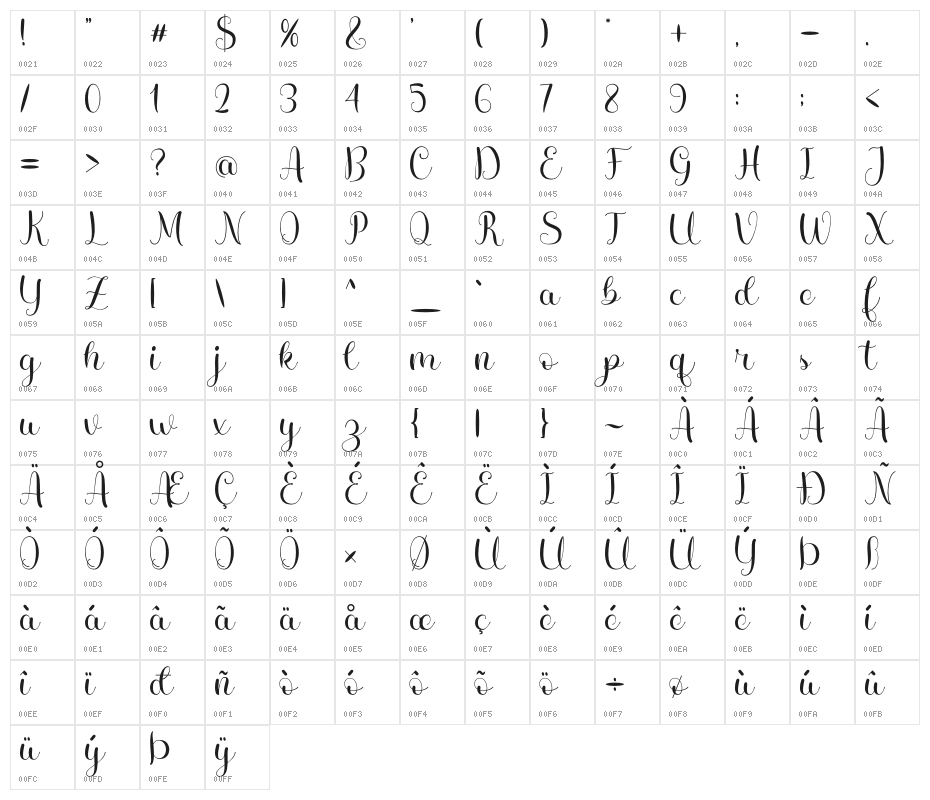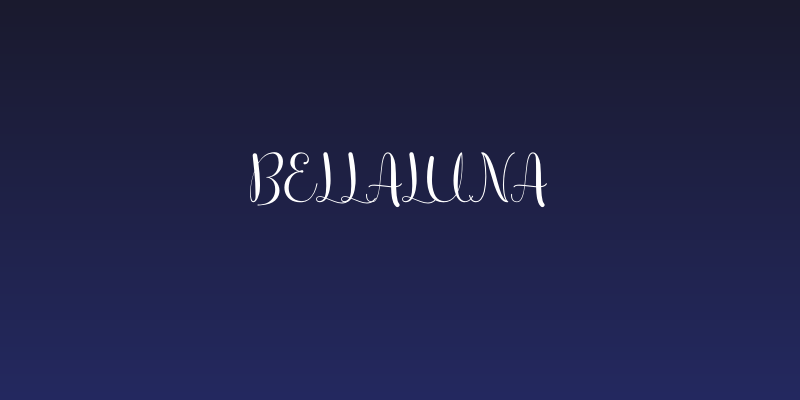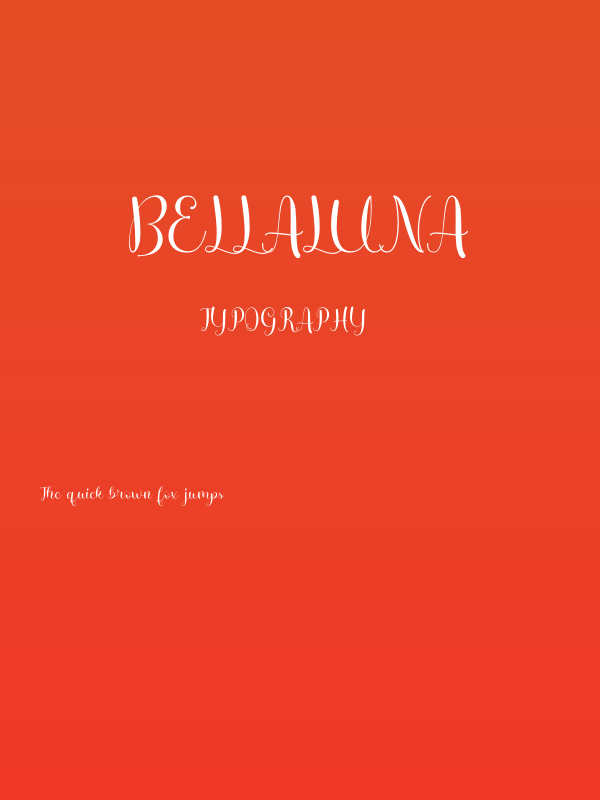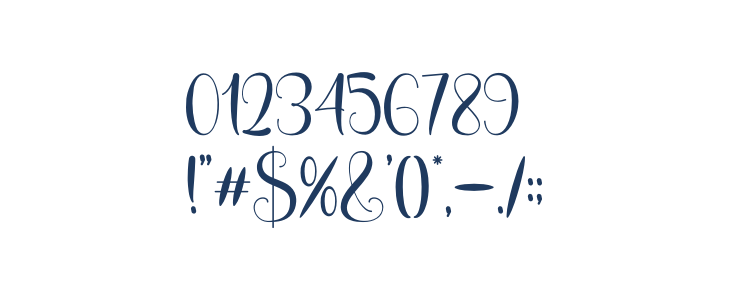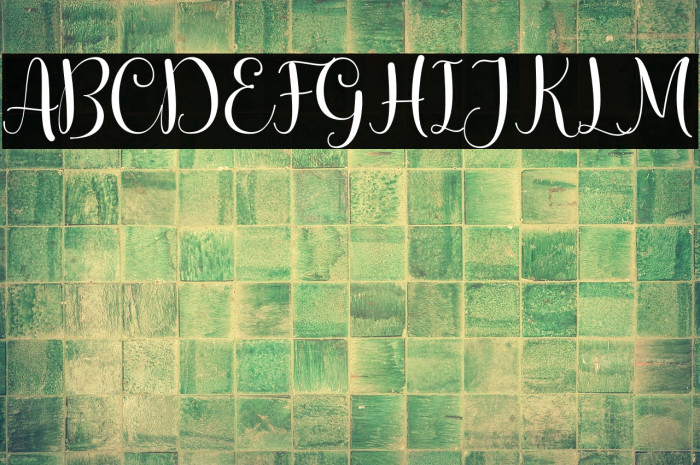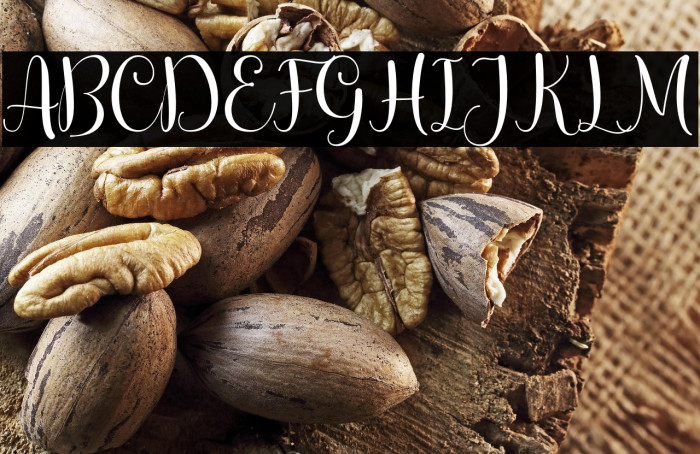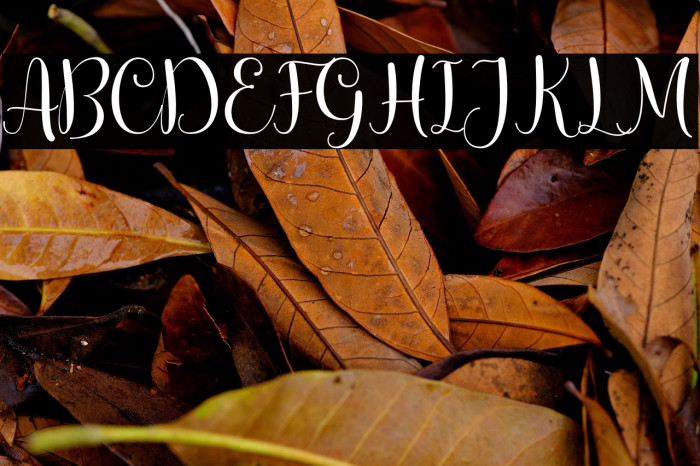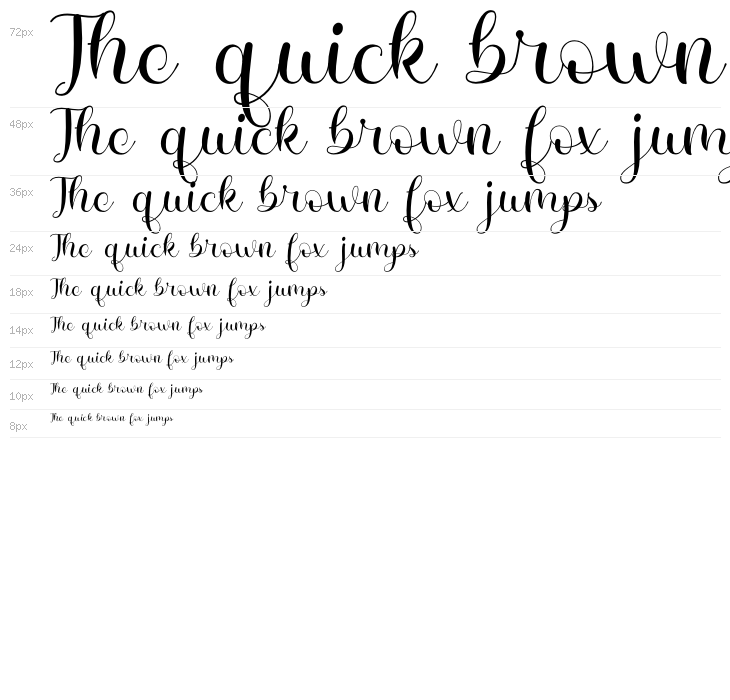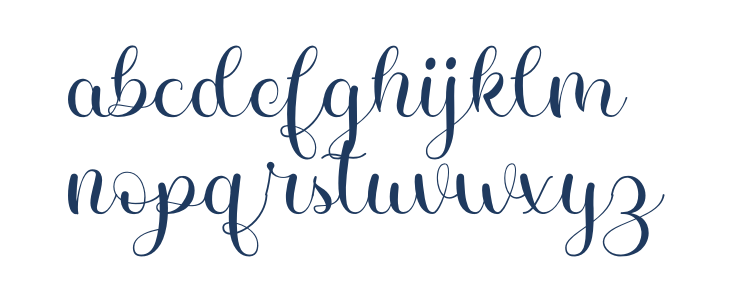
Bellaluna Font
Bellaluna Description
This elegant script font features a flowing, cursive style with delicate loops and swirls, giving it a sophisticated and graceful appearance. The uppercase letters are ornate, with extended flourishes that add a touch of drama, while the lowercase letters maintain a consistent, smooth flow. The numerals are stylishly integrated, matching the overall aesthetic with their curvaceous forms. Special characters are thoughtfully designed to complement the alphabet, ensuring a cohesive look across all text. The font's thin strokes and high contrast between thick and thin lines enhance its decorative appeal, making it ideal for formal invitations, branding, and other projects where elegance is paramount.
| Use Case | Invitations, Branding, Decorative text |
| Proposed Projects | Ideal for wedding invitations, luxury branding, greeting cards, and elegant packaging. |